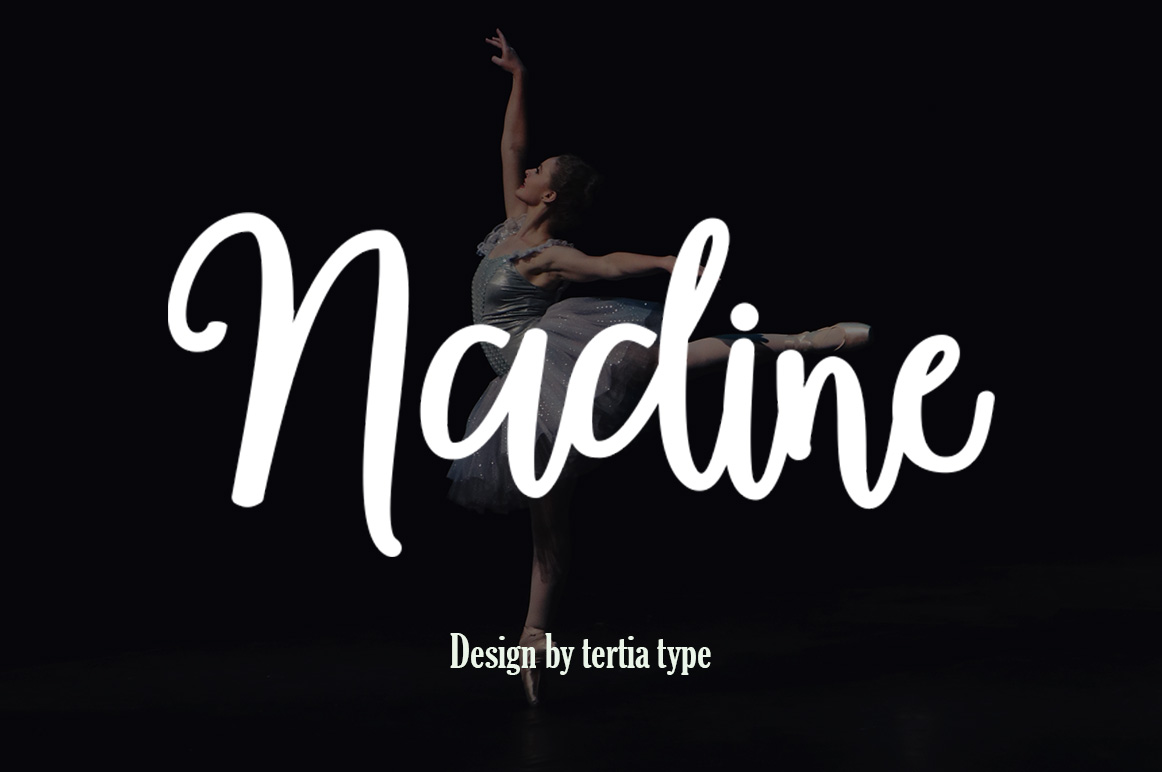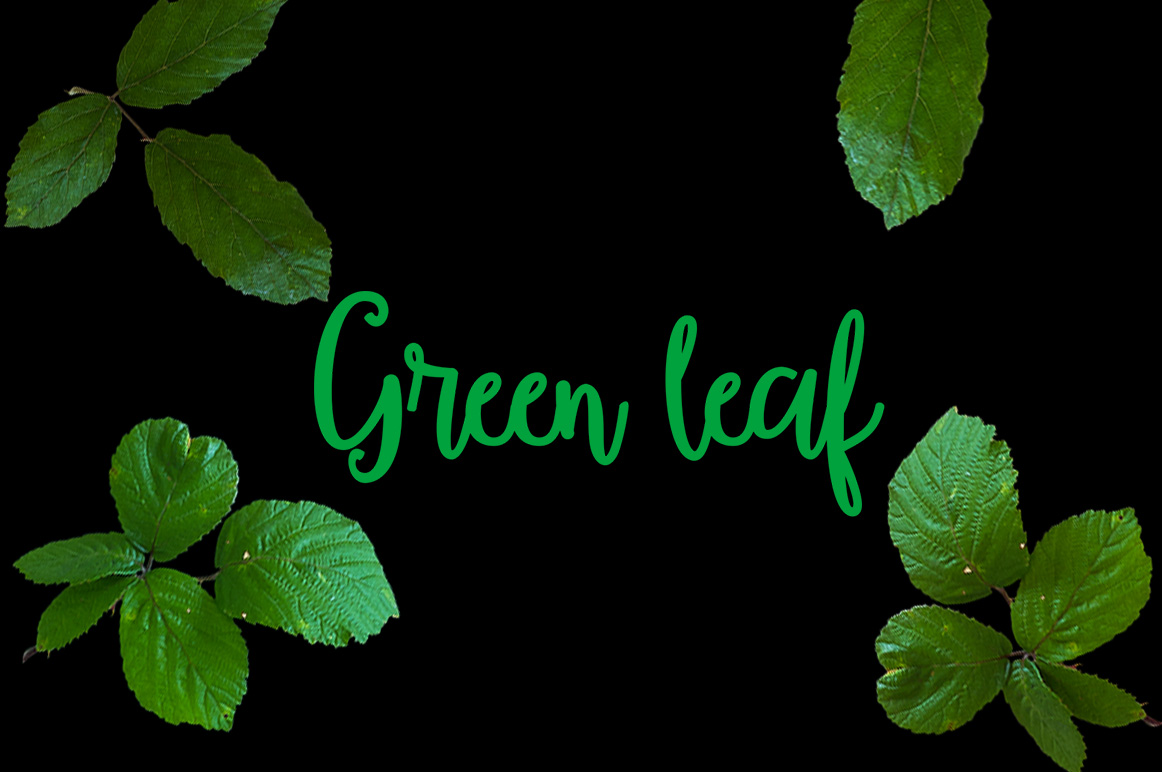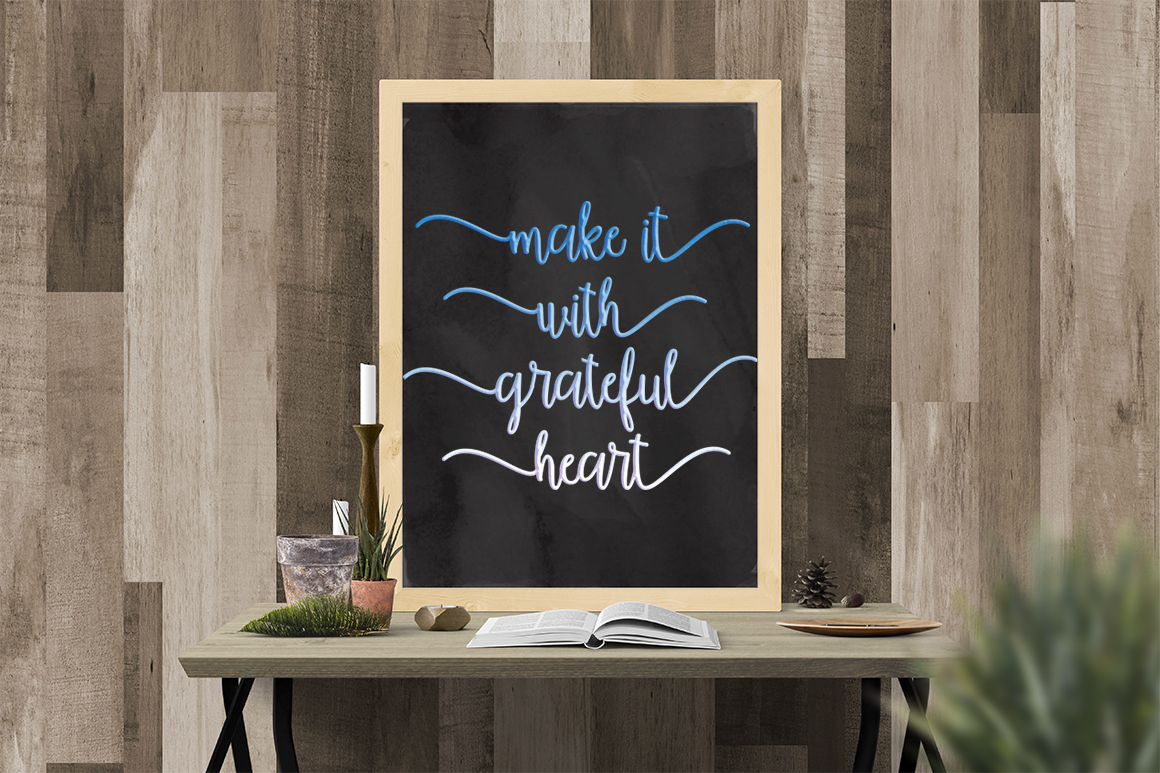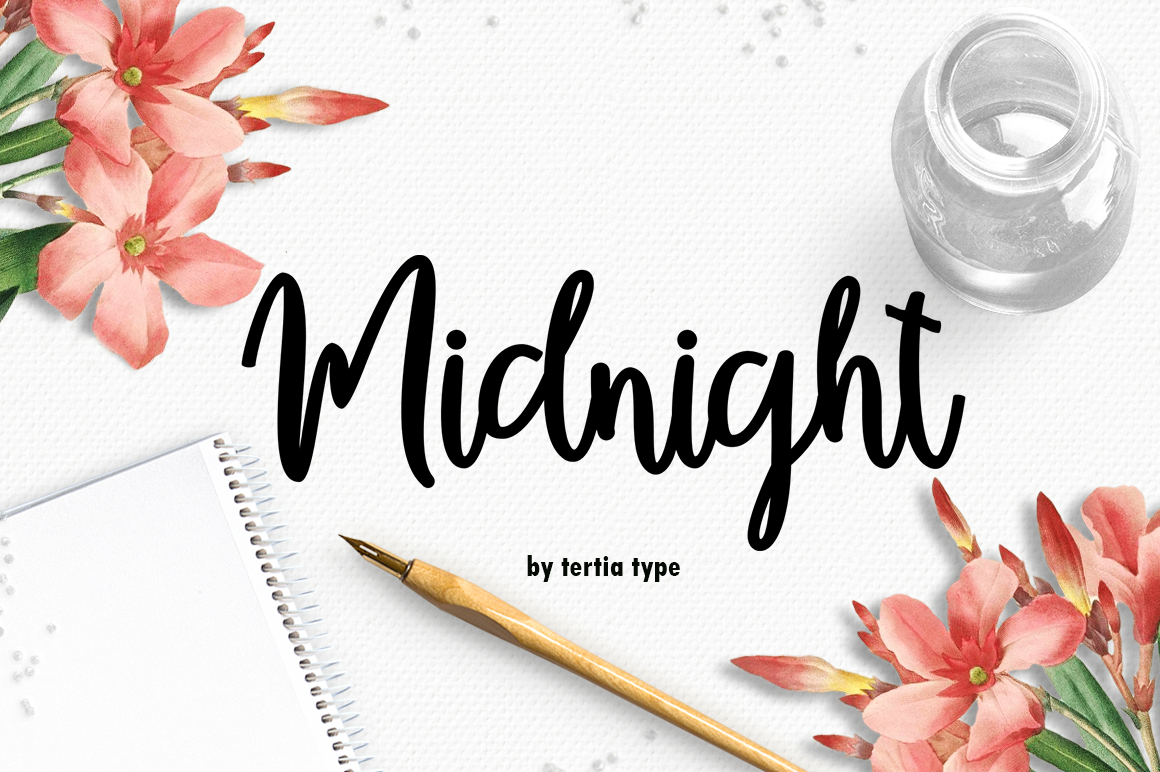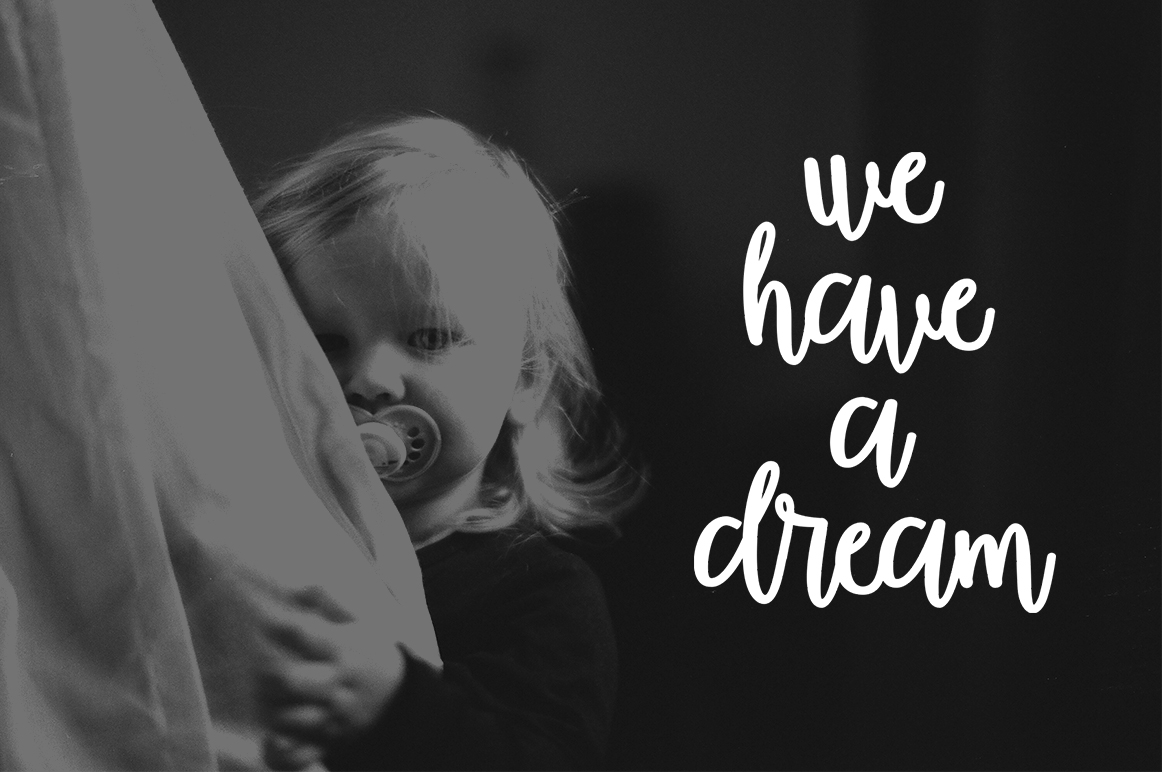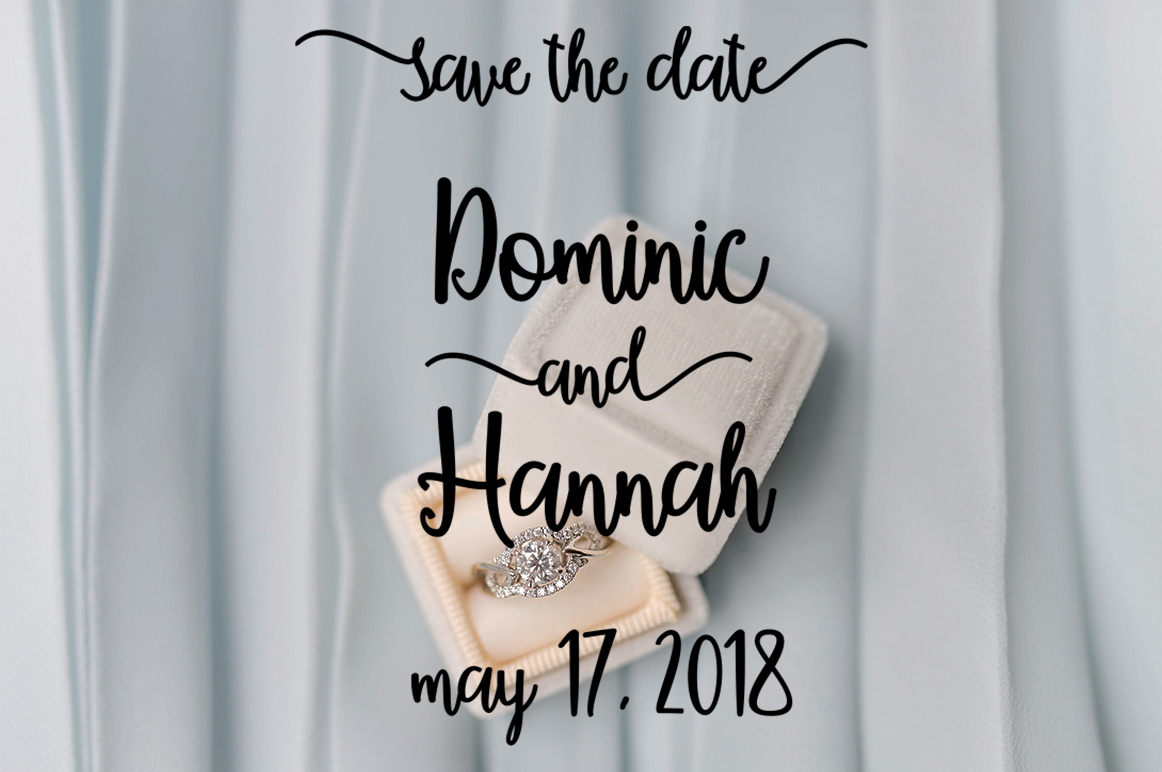
Nadine Script Font
About Nadine Script Font
Nadine is a elegant hand-crafted script. It’s loaded with a full set of lowercase alternates to give you endless possibilities.